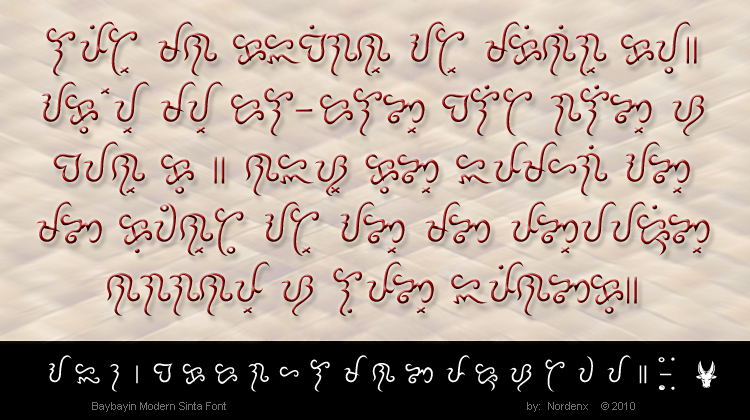
The Script
Baybayin script is an ancient form of writing by native islanders and tribes in the South East Asian archipelago we now know as the Philippines.
The Font
I created true type fonts (TTF) I called "Baybayin Modern" to use in modern art. The fonts are stylized composites from publications & handwriting examples from the past. This font is a modern representation and should not be considered a historical example of the Baybayin, however it is based on the traditional characters’ shapes and form. The glyph’s strokes, sizes and weights have been made uniform in order to present a neat and elegant printed appearance. The font is calligraphic & artistic representations of my handwriting.